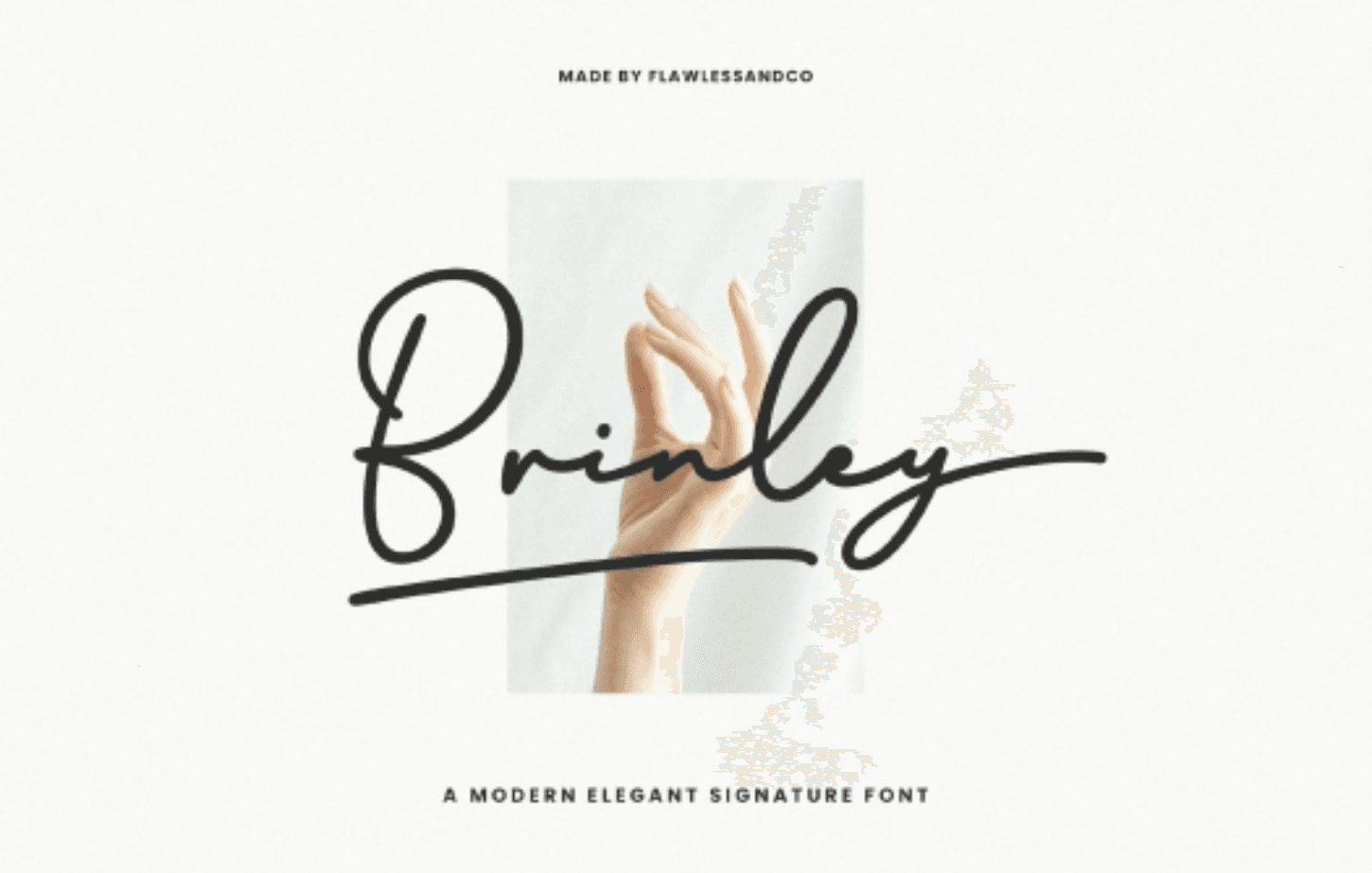
Brinley – Handwritten Script Font
Brinley, a sophisticated and enchanting modern handwritten script font that adds a touch of elegance to any design project. With its smooth and fluid lines, Brinley exudes a natural and personalized feel, making it perfect for various applications such as branding, wedding invitations, packaging, and posters. Its versatility makes it an ideal choice for those looking for a modern and elegant font that stands out from the rest.